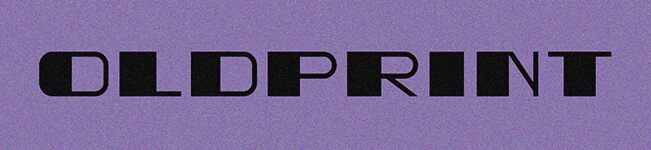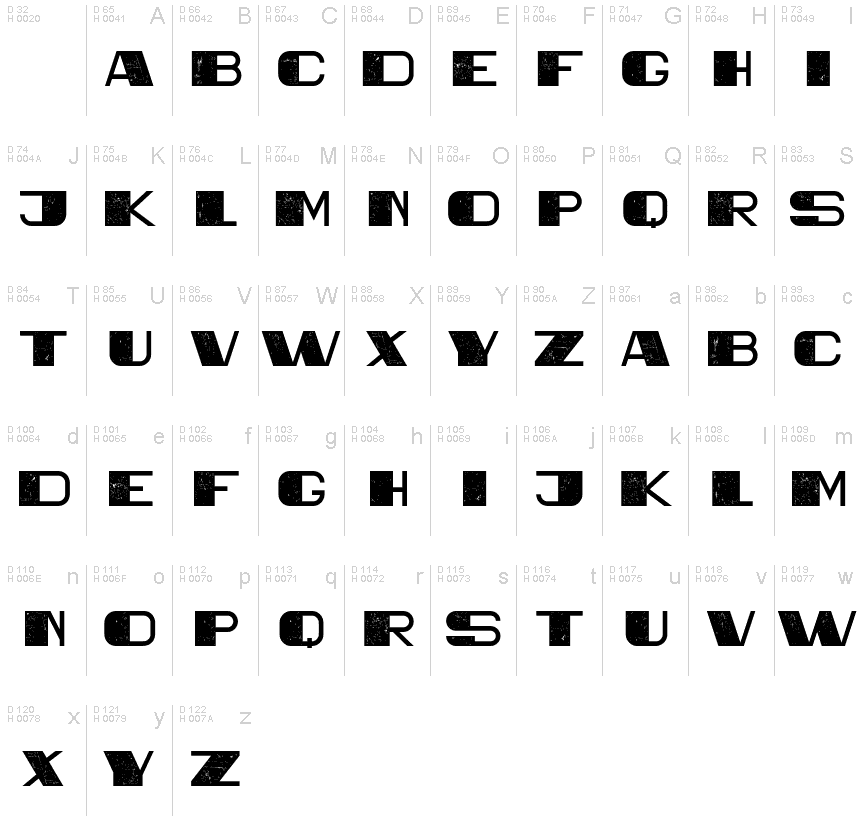
Oldprint Regular
Oldprint, the extra-bold and extra-expanded display font by Vladimir Nikolic, takes you back to the eroded retro era. With its aged charm and worn edges, this font adds a touch of nostalgia to any project.
Perfect for vintage-inspired logos, posters, and album covers, Oldprint captures attention with its boldness and unique style. Its wide width allows for maximum impact, making it ideal for headlines that demand a strong presence.
Let Oldprint bring your designs to life with its distinctive retro flair.